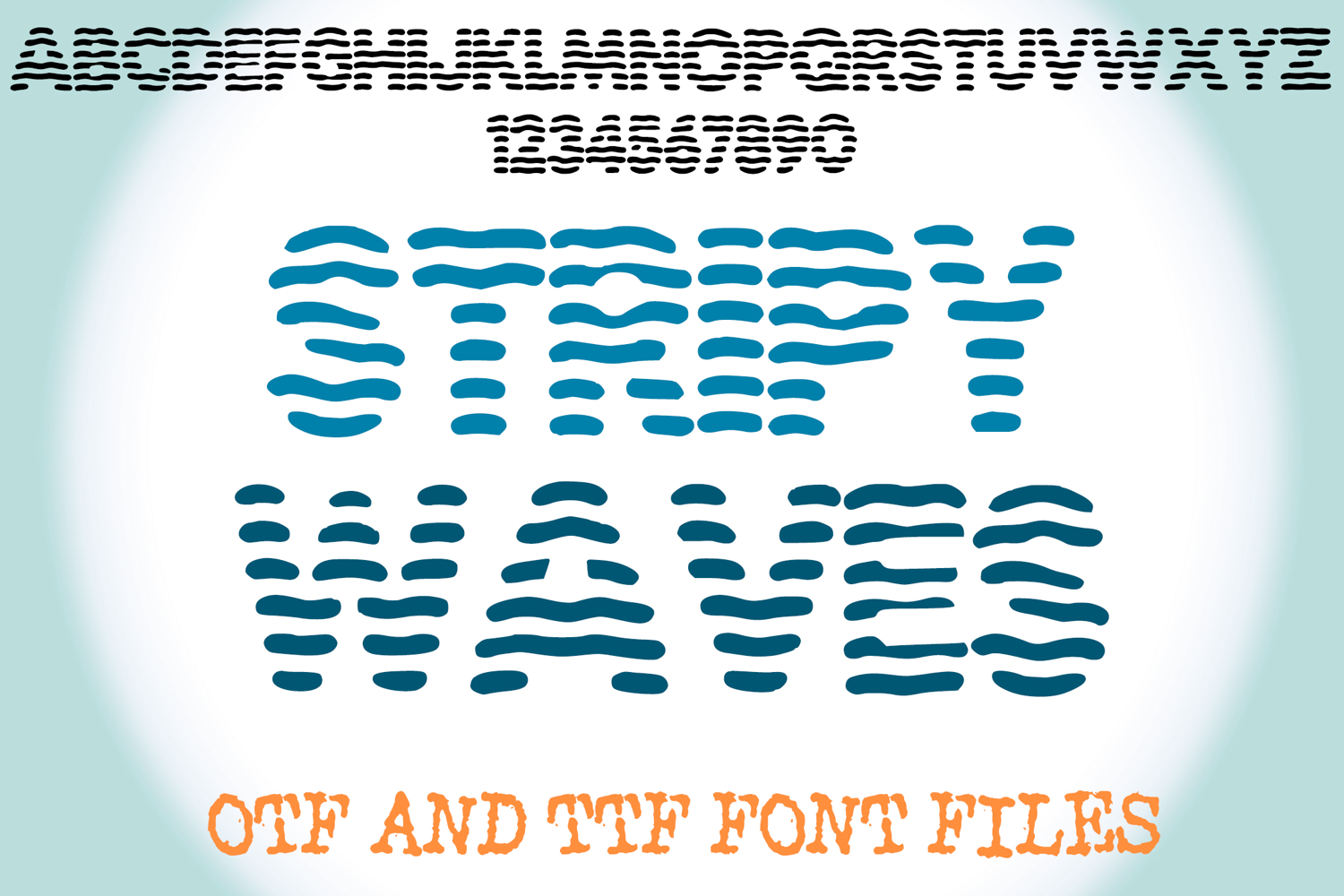
Stripy Waves Lettering ABC Text Font Alphabet OTF Type Illustration
A wavy style font where you can create your own words and colour them to your vision!